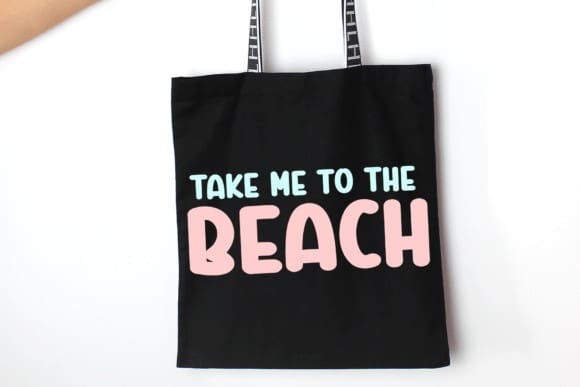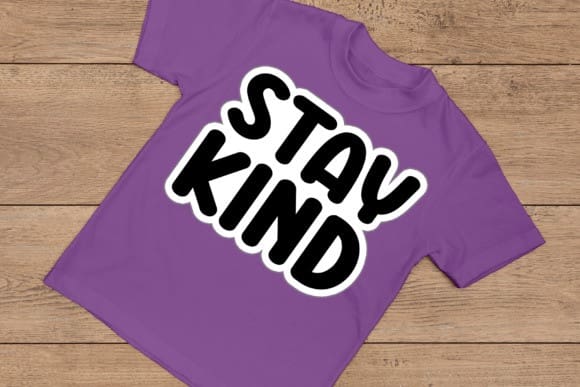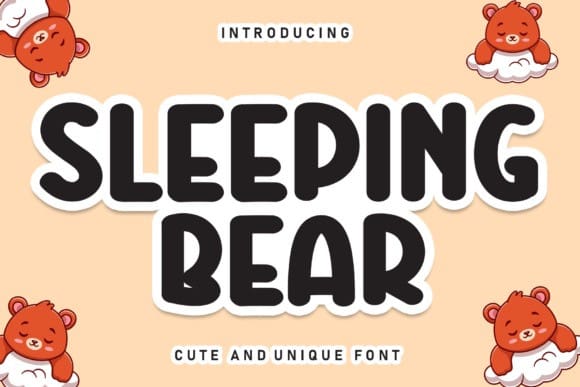
Sleeping Bear Font
Sleeping Bear Font is a sweet and friendly handwritten font. Fresh and casual, this font is ideal for writing wedding invitations, cards, or any other design that might need a lovely touch.